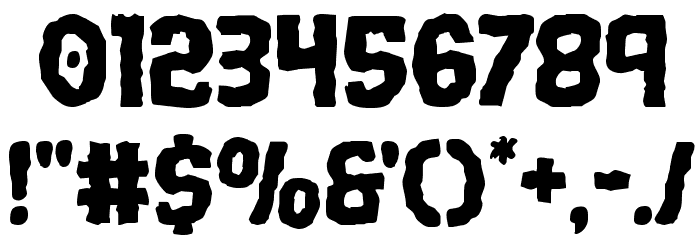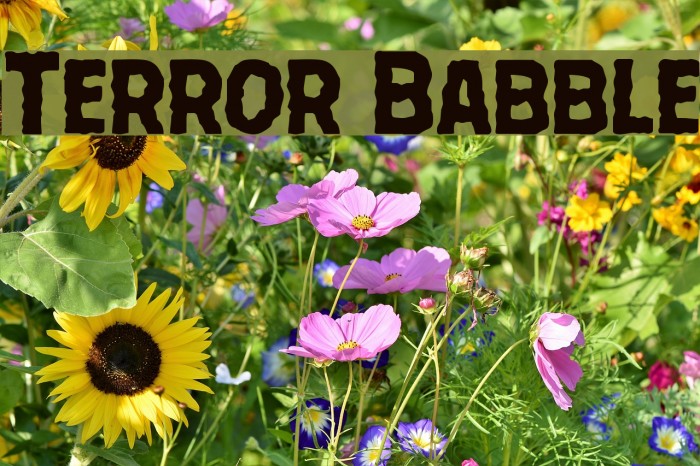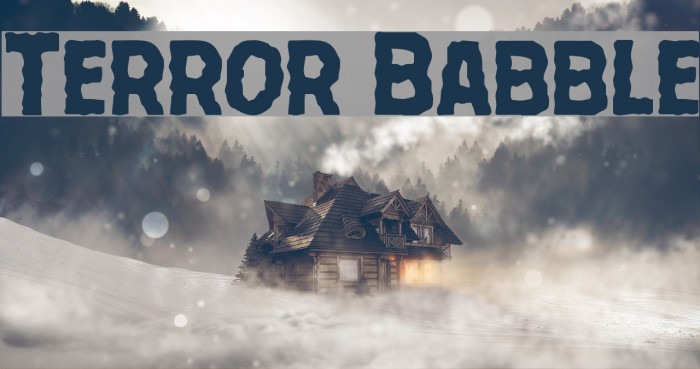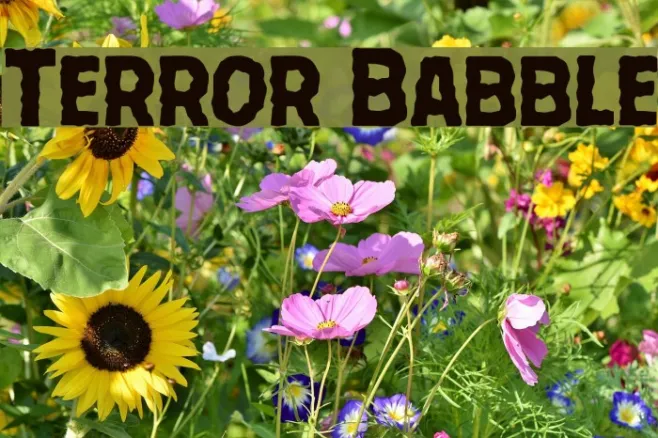
Terror Babble Font
This font features a bold and rugged design, characterized by its uneven and irregular edges that give it a distressed, hand-drawn appearance. The letters are thick and substantial, creating a strong visual impact. The style is reminiscent of horror or thriller themes, making it ideal for projects that require a dramatic and eye-catching typeface. Its unique and quirky design elements make it stand out, while maintaining readability. The font includes a full set of uppercase and lowercase letters, numbers, and a variety of special characters, allowing for versatile use in different contexts.
A bold, rugged font with a distressed, hand-drawn appearance, perfect for dramatic themes.
- Proposed Projects: Ideal for horror-themed posters, Halloween invitations, edgy branding, and creative titles.